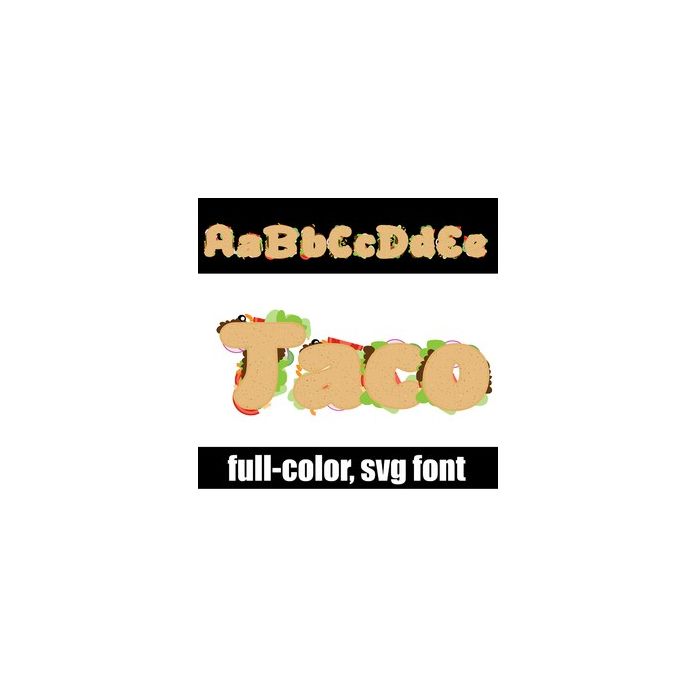
This adorable, full-color font features letters that look like tacos. This font works best for titles, displays, posters and more. Please note color fonts will show as black in non compatible programs. This font type is compatible with Silhouette Studio.